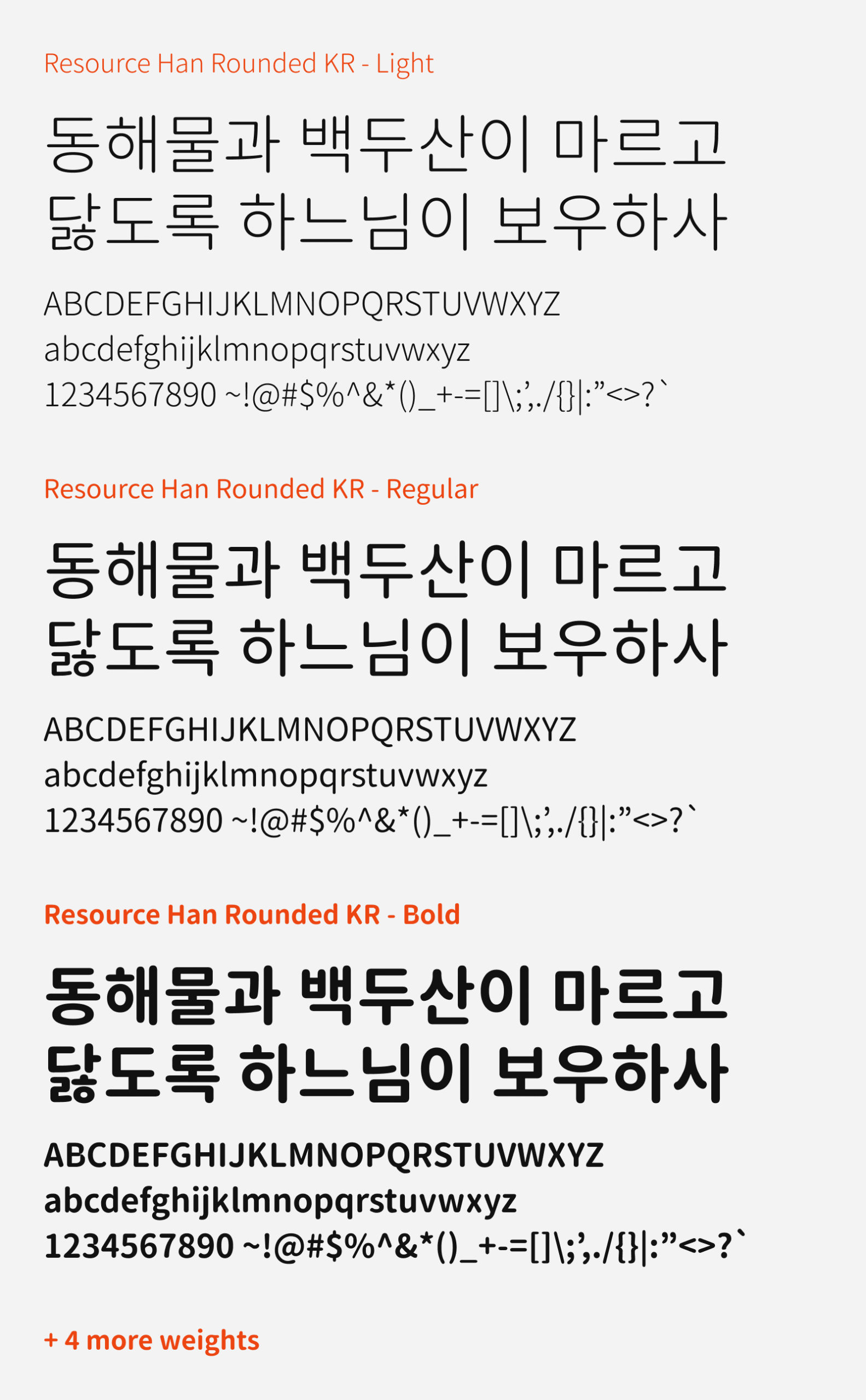
Resource Han Rounded KR
Resource Han Rounded KR is a free rounded Korean font based on Source Han Sans. The font author modified Source Han Sans by making it rounded, assuming programmatically. The rounded-ness in the stroke ends and edges turned the formal looking Source Han Sans to a friendly, down-to-earth version. Other than that, it retained the DNA of the base font, by being versatile, functional and readable.
Resource Han Rounded KR comes with 7 family weights from Extra Light to Heavy. As mentioned, this font is versatile and with its multi-weight support, you can use this font in many applications, and even as font for documents (However, if you are looking to use this font in Microsoft Office, the font author encourage you to download the MSOffice version instead, also hosted on Github). The KR version supports all Hangul (한글) and Hanja (한자 or Chinese characters adopted into Korean language) defined in KS character set. With its large character library support, the font file size pretty enormous about 8MB and above each. You can download this font for free and be used on commercial projects as it is also released under SIL Open Font License version 1.1.